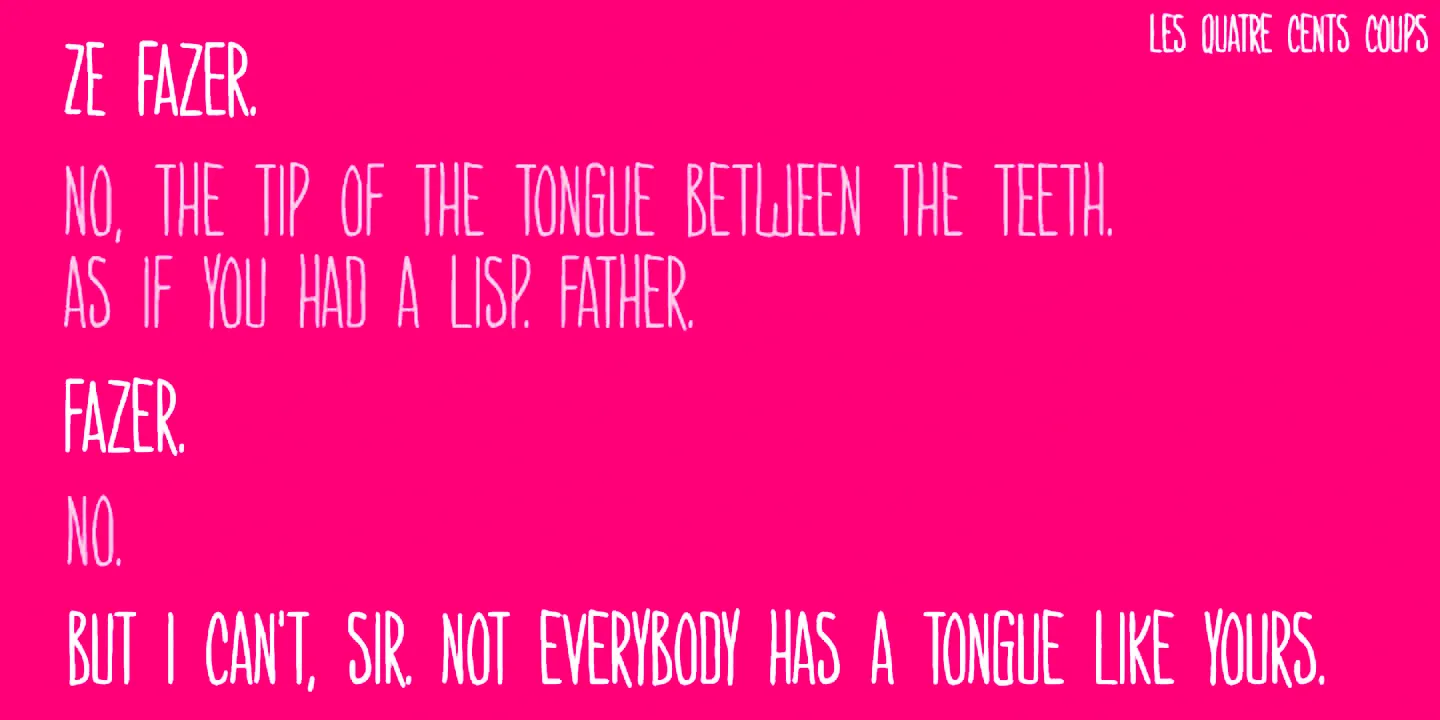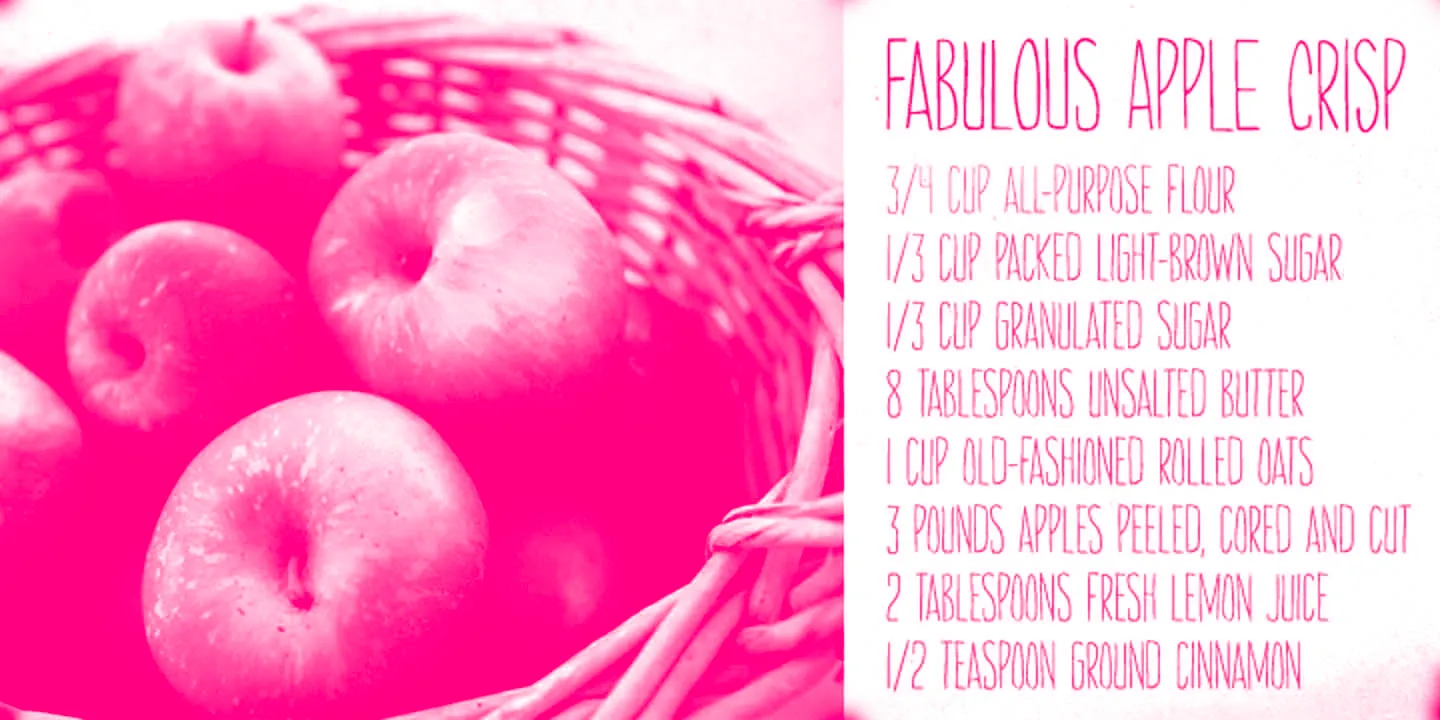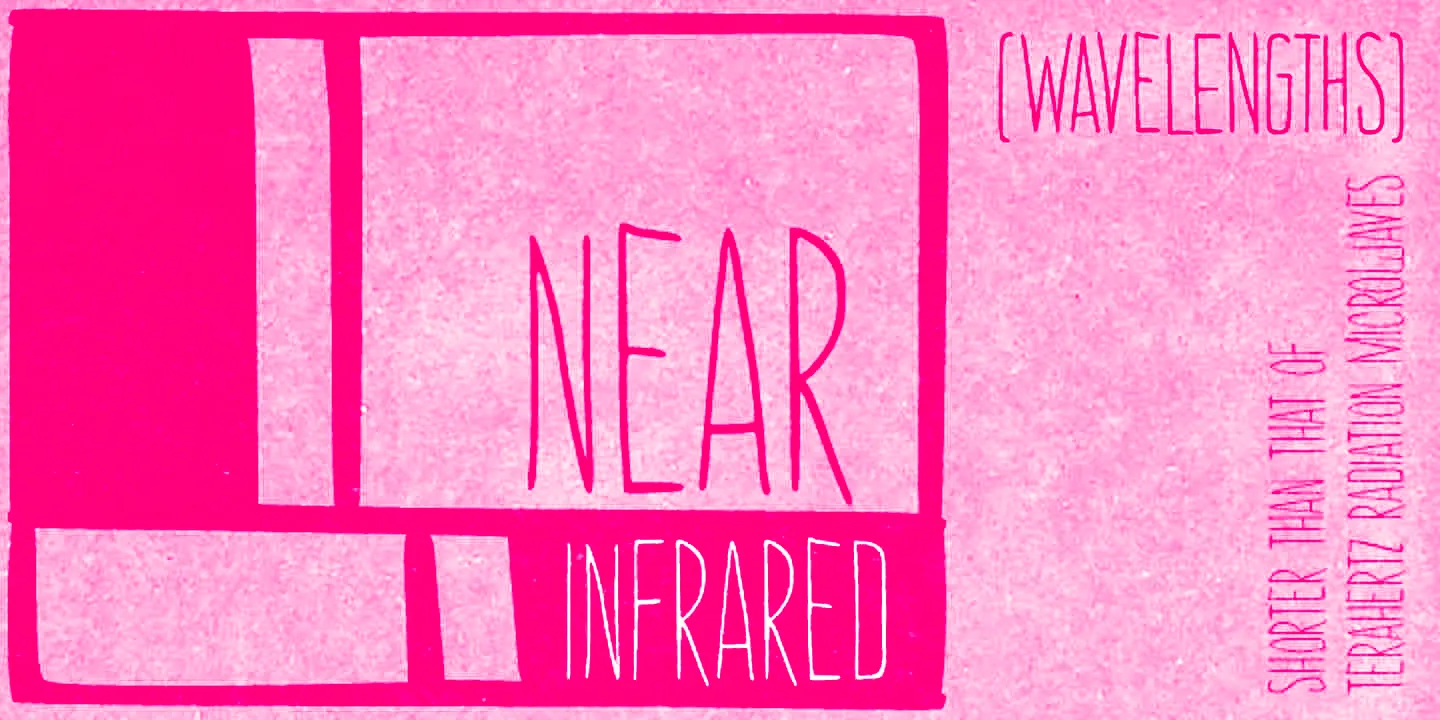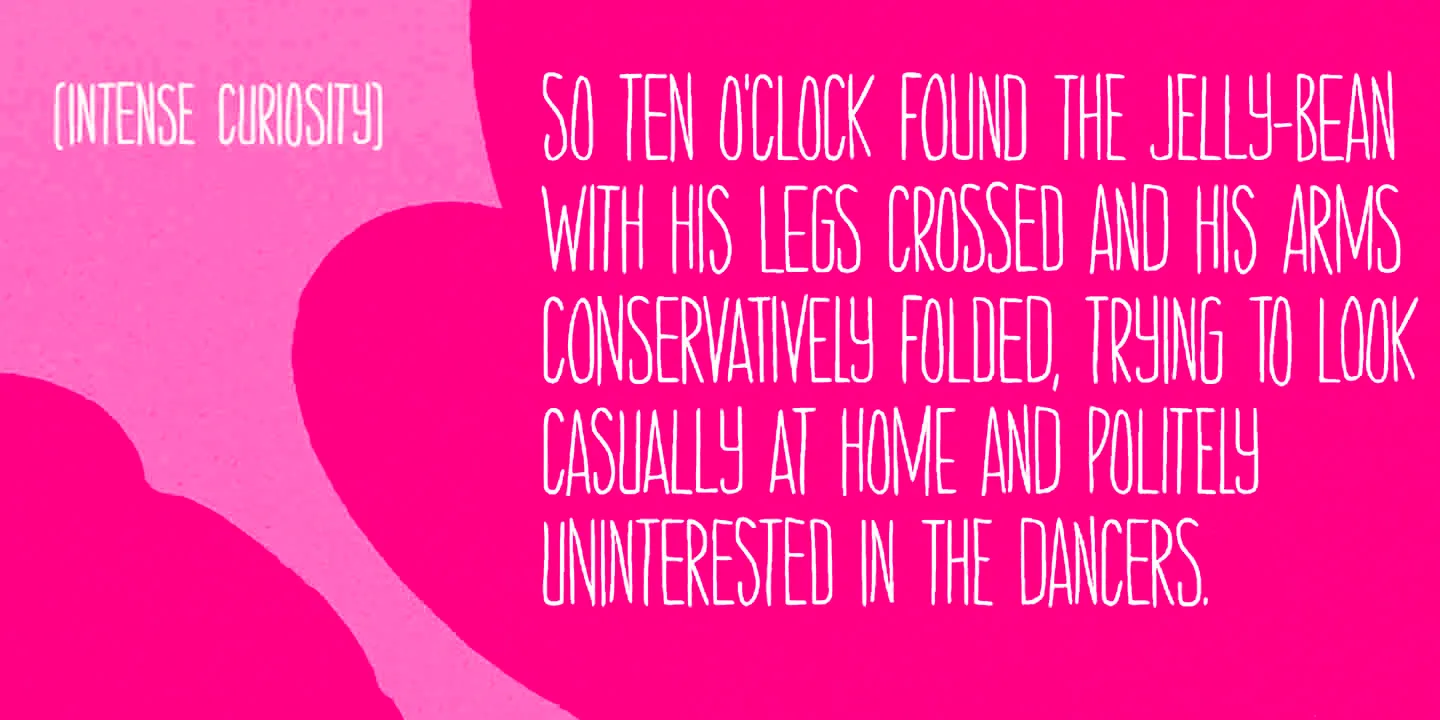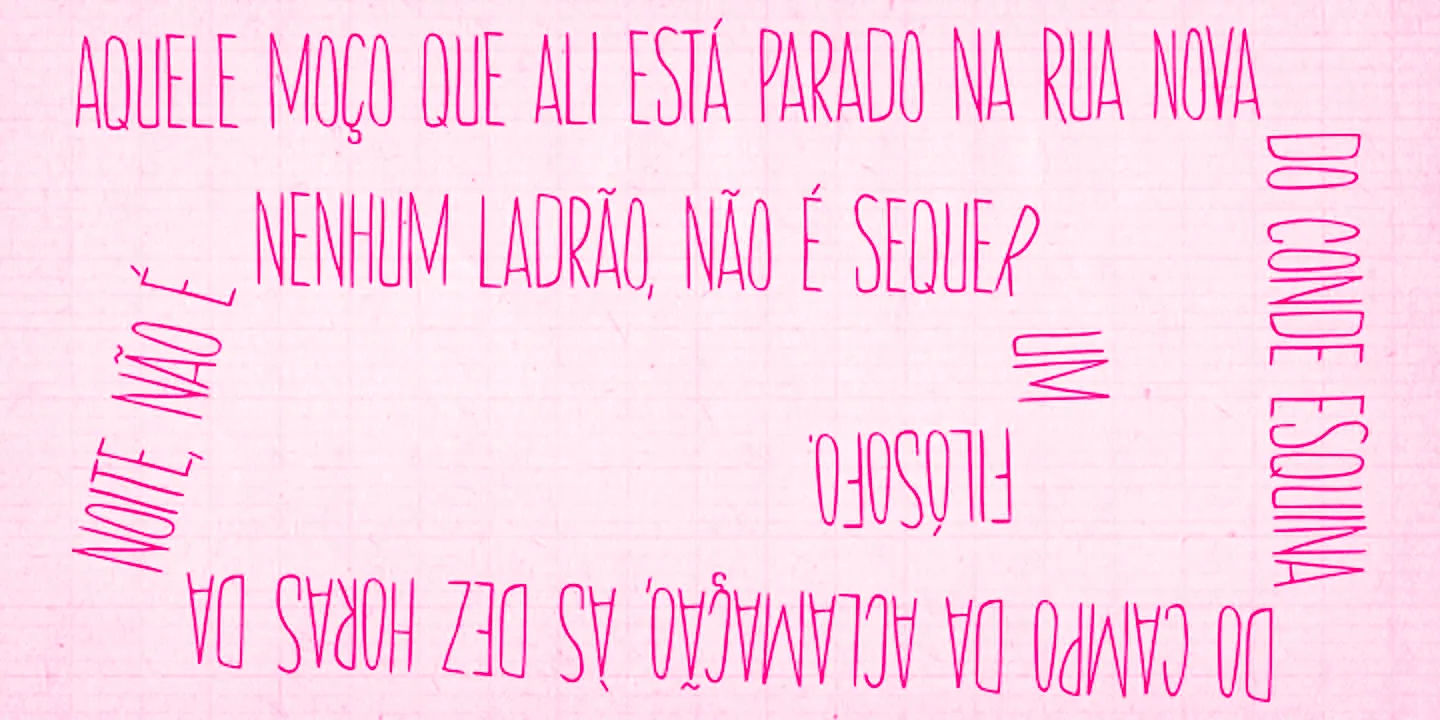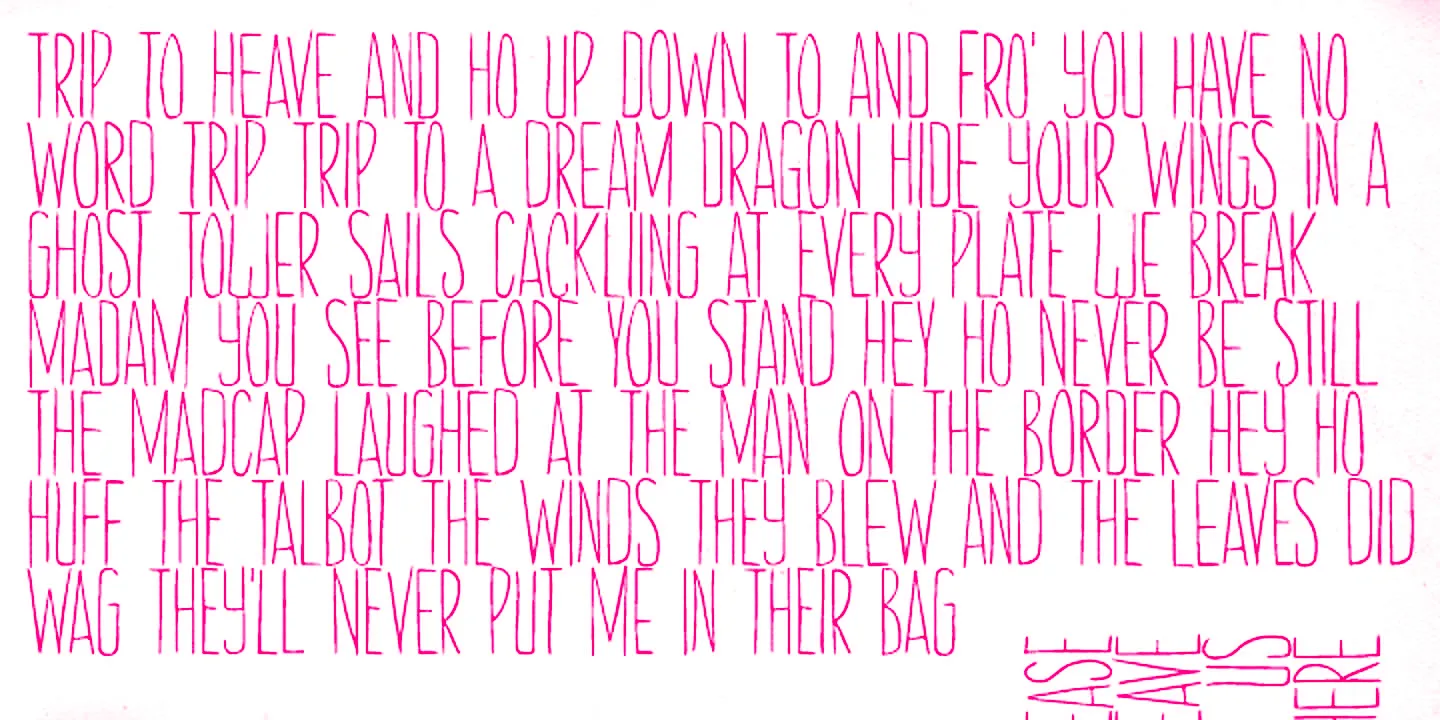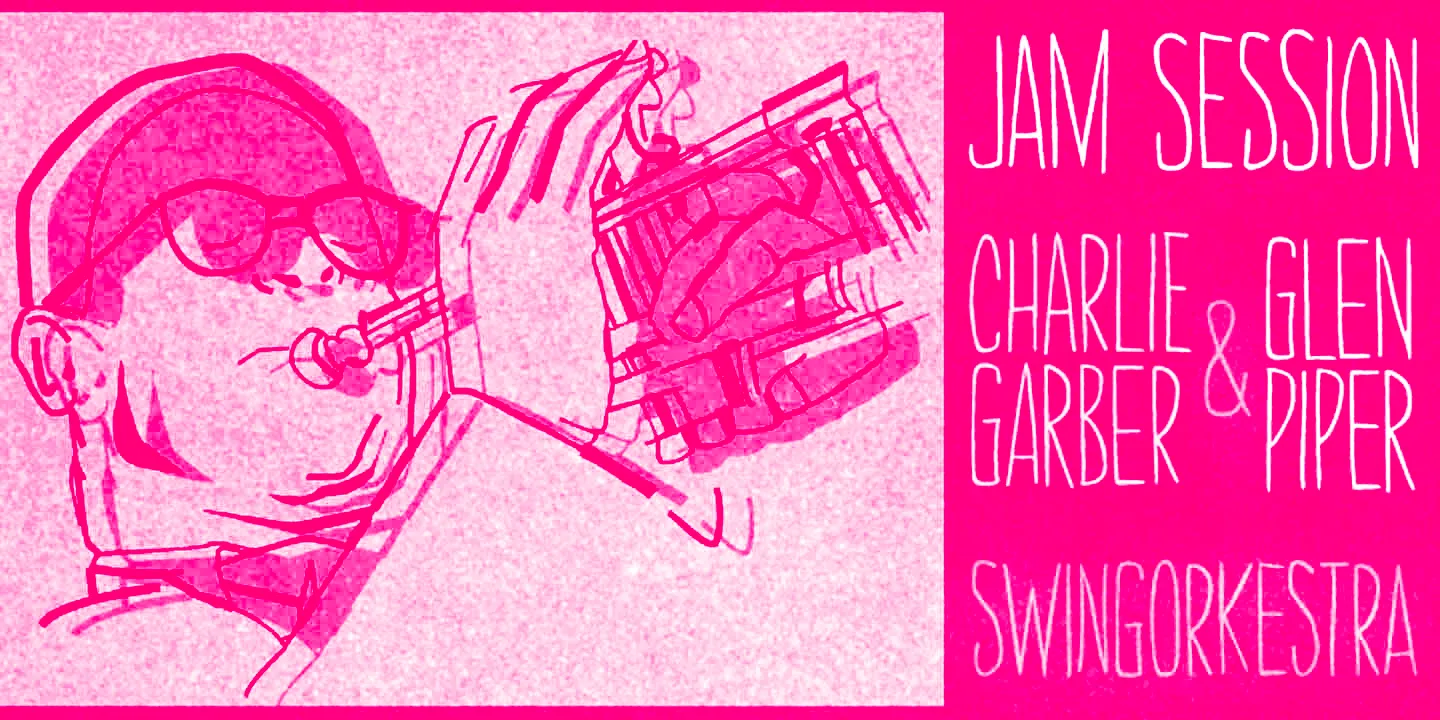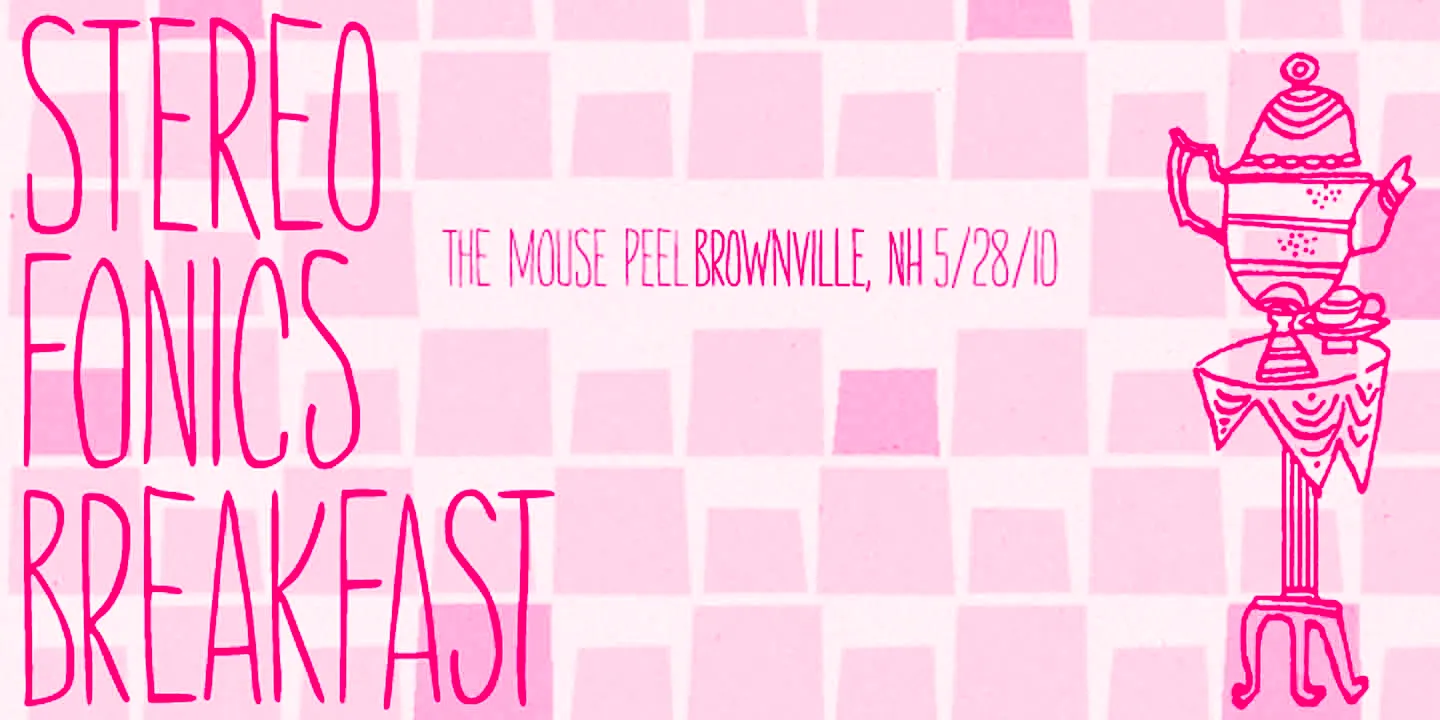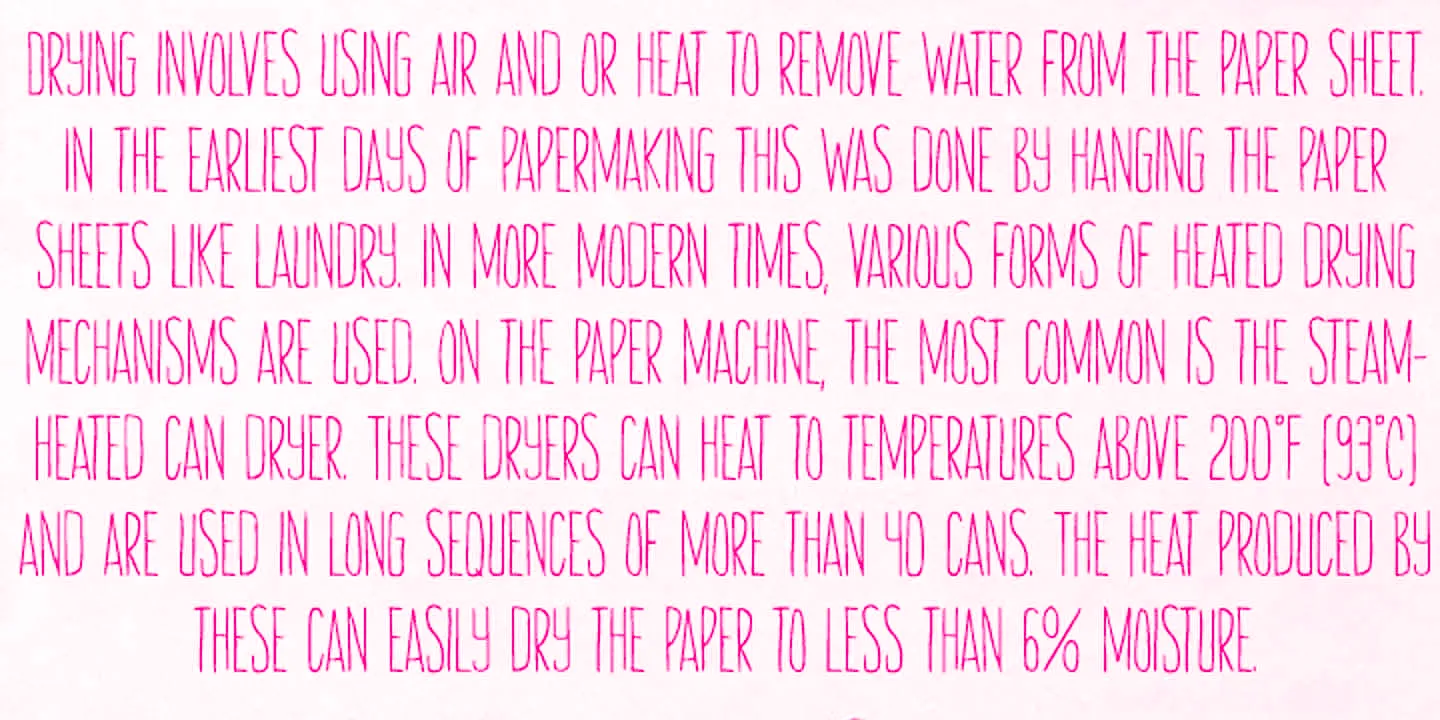
Amarelinha Font Family
Amarelinha
Amarelinha is a casually condensed and lively handwritten font, charming in its own peculiar way. It is a unicase design, with two versions for each letter and a pocketful of ligatures, providing an organic and more spontaneous lettering feel. Looking for something analog and lofi and wanting to save space? Amarelinha can be both at the same time! Available in two handy weights.